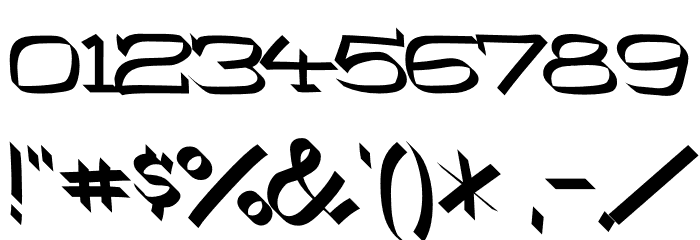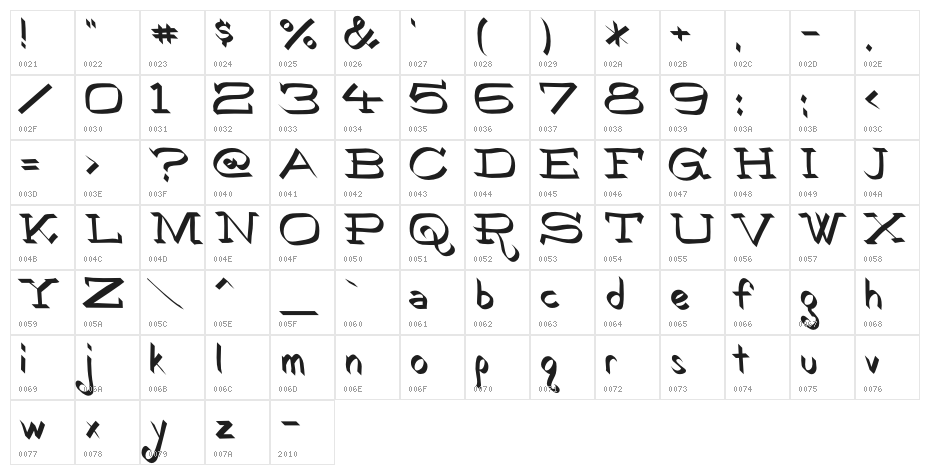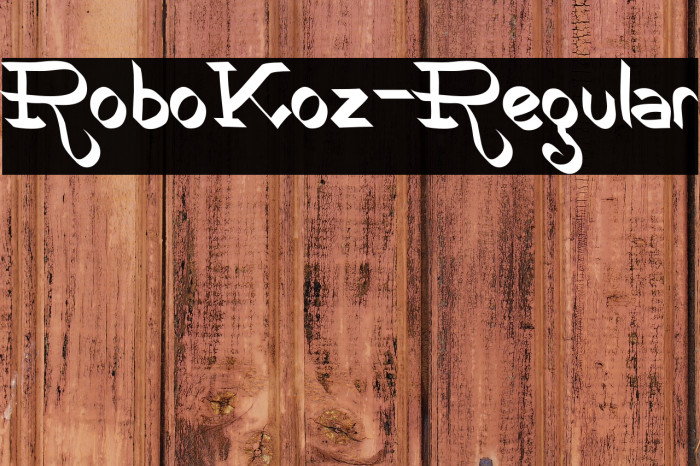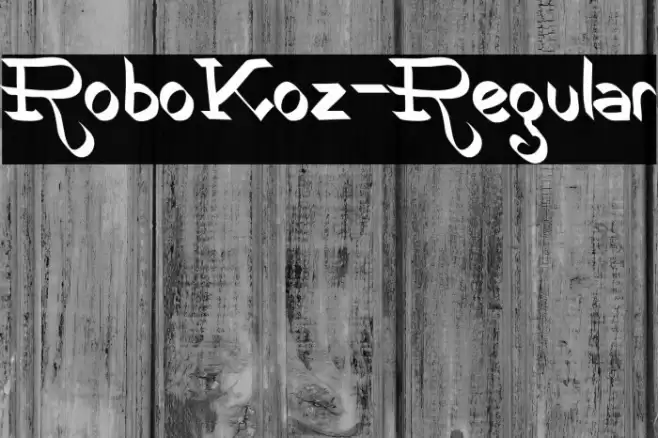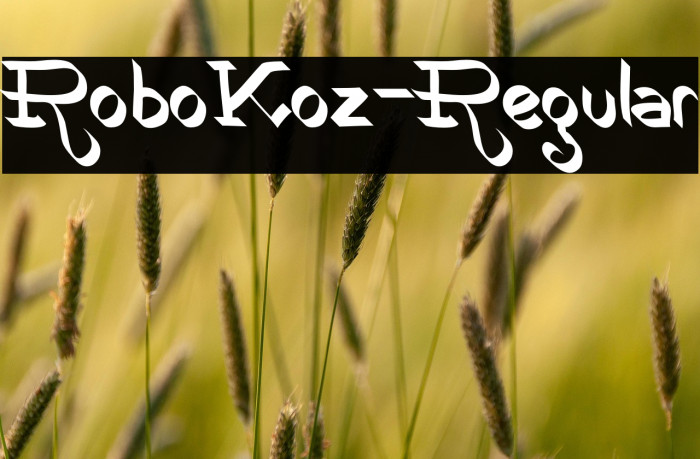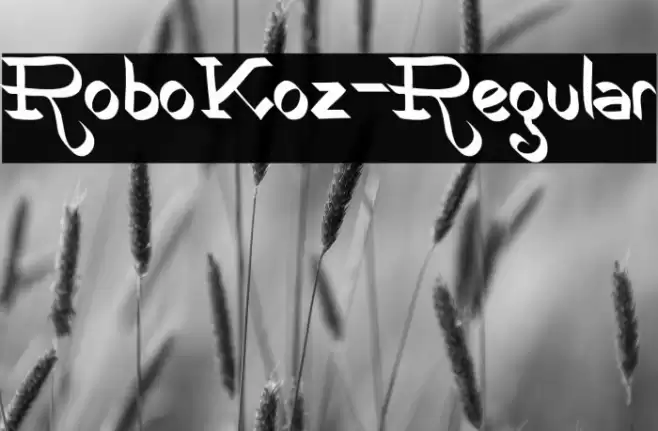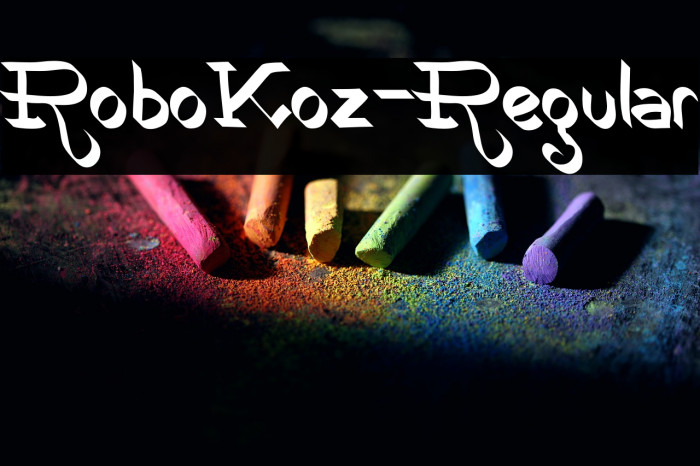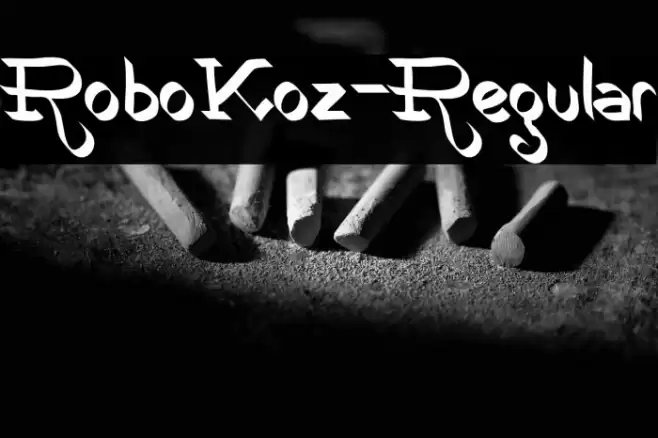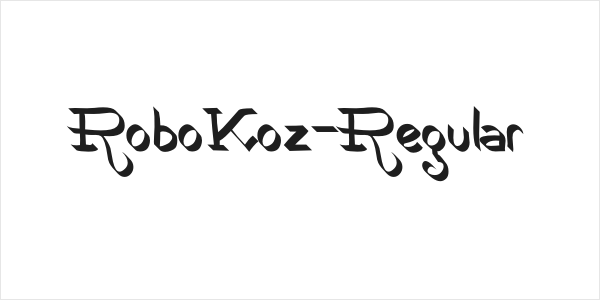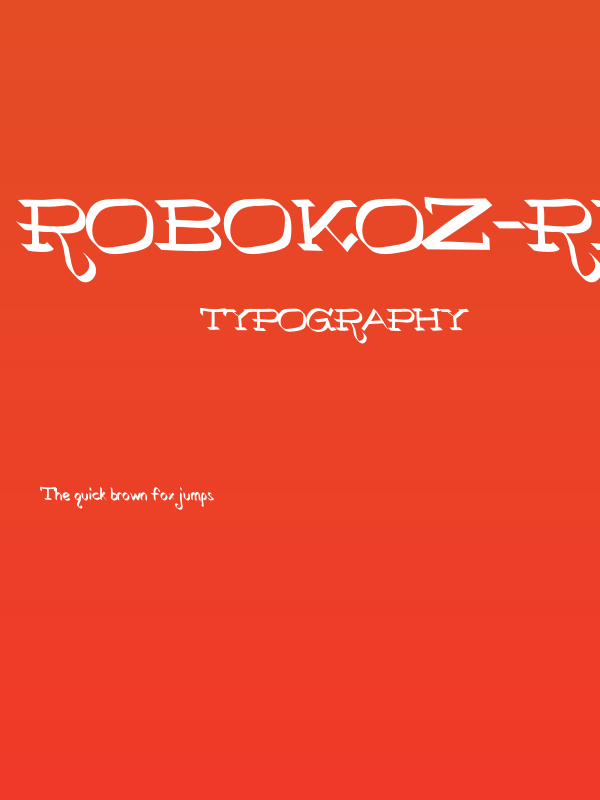
RoboKoz-Regular Font
RoboKoz-Regular Description
This font features a unique and edgy design with sharp, angular lines and a futuristic aesthetic. The uppercase letters are characterized by their bold, geometric shapes, while the lowercase letters maintain a consistent style with slightly softer curves. The numerals and special characters follow the same design principles, ensuring a cohesive look across all glyphs. The font's distinct style makes it stand out, with a dynamic and energetic feel that is both modern and slightly rebellious.
| Overall Style | Futuristic, Edgy |